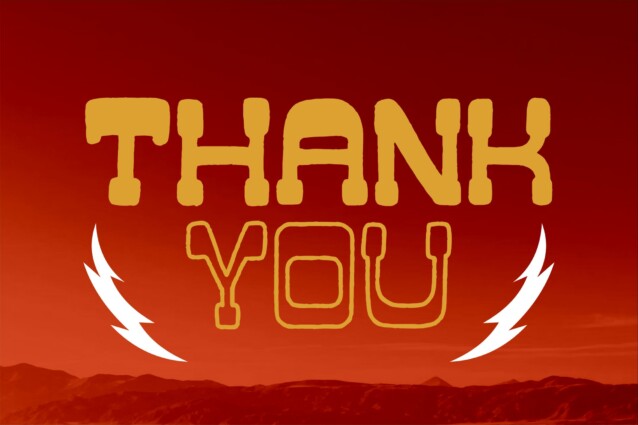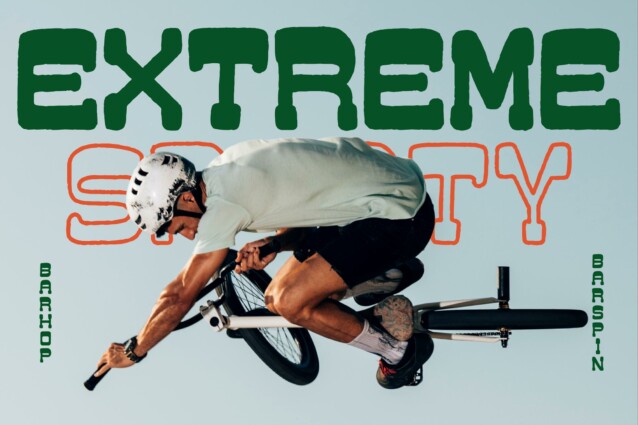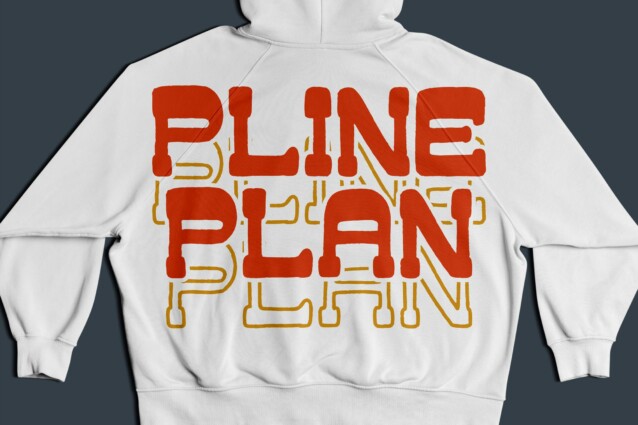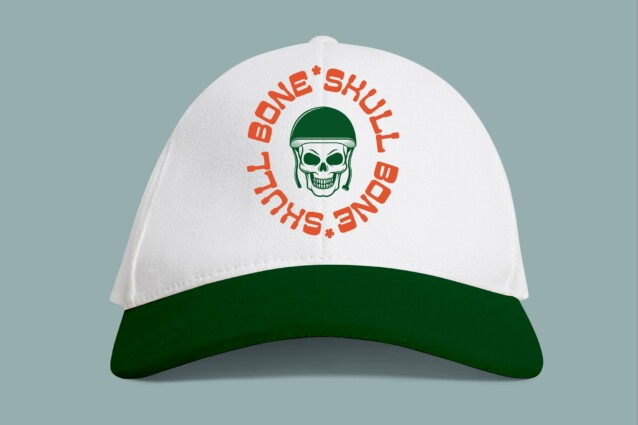
Bounty Freak Font is a Handdrawn Slab Font, suitable for any projects such as: logos, branding projects, homeware designs, product packaging, mugs, quotes, posters, shopping bags, t-shirts, book covers, name card, invitation cards, greeting cards, label, photography, watermark, special events, and all your other lovely projects that need a beautiful script taste.